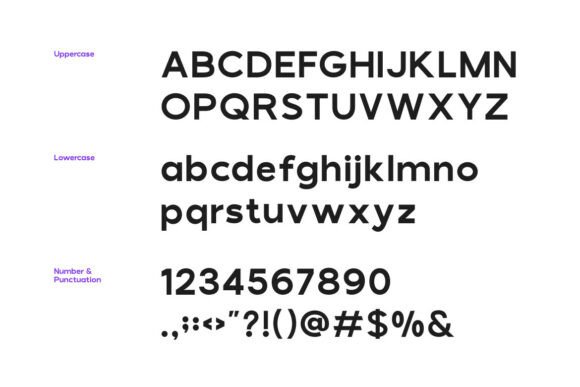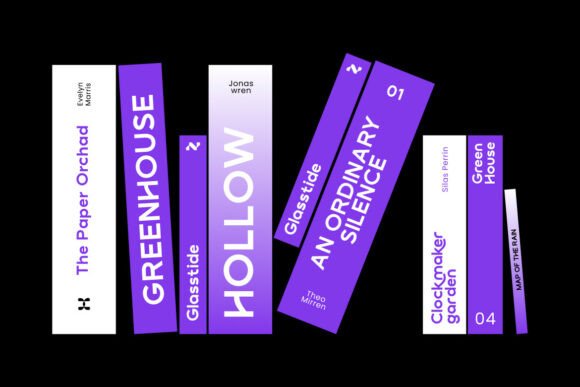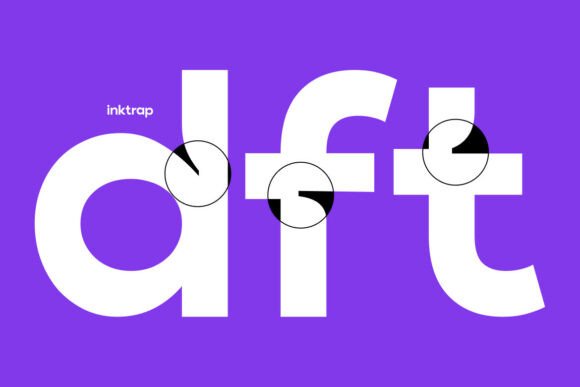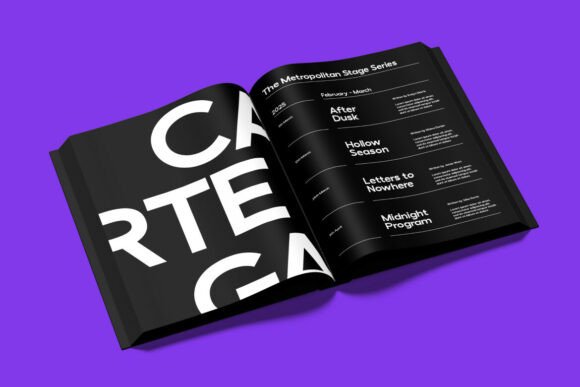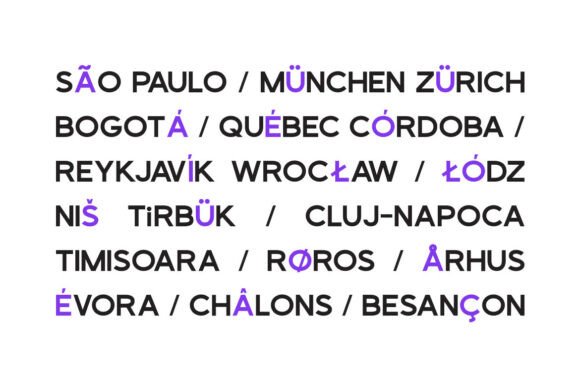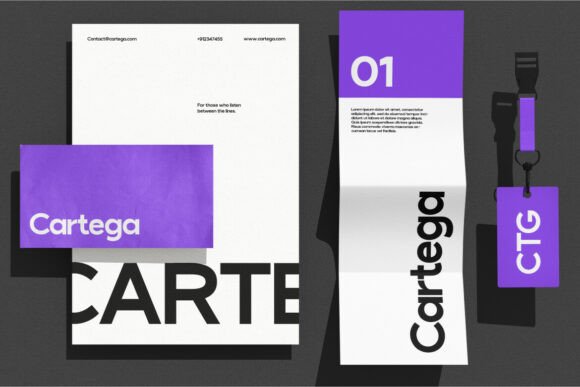
Designing for the World: Introducing Cartega Font
Have you ever stared at a foreign menu, trying to decipher the intricacies of a language you’re not familiar with? Or perhaps you’ve struggled to read a website in a language that’s not your native tongue? The challenges of global communication are real, but with the right tools, we can break down language barriers and connect with people across the world. That’s where Cartega Font comes in – a modern sans serif typeface designed to bridge the gap between languages and cultures.
As a designer, you know the importance of clarity and consistency in your work. Cartega Font delivers on both fronts, offering a clean geometric foundation with subtle humanist refinement that’s perfect for international brands, corporate identity systems, and global startups. With its extensive multilingual support and carefully engineered diacritics, Cartega Font is the perfect solution for companies looking to establish a strong global presence.
Cartega Font Key Features
- Font Family: Cartega Font is a modern sans-serif font family designed for digital use.
- Character Count: The font family includes over 600 characters, including Latin, Cyrillic, and Greek alphabets, as well as punctuation and special characters.
- Unique Characteristics: Cartega Font features a unique blend of geometric and organic shapes, resulting in a clean and modern aesthetic.
Cartega Font Review
Overall, I was impressed with Cartega Font. It has a unique and modern design that can be used for a variety of projects, from branding to digital products. ✨ One of the things that stands out about this font is its versatility – it can be used for both formal and informal projects, making it a great addition to any designer’s toolkit.
Some of the specific features that I like about Cartega Font include:
- Its clean and minimalist design, which makes it easy to read and understand.
- Its wide range of weights and styles, which allows for a lot of flexibility and customization.
- Its OpenType features, which make it easy to create complex and intricate designs.
- ⚠️ Cartega Font may not be suitable for projects that require a very formal or traditional look.
- ⚠️ Some users may find the font to be a bit too minimalist, which can make it difficult to read at very small sizes.
Overall, I think Cartega Font is a great choice for designers who want a modern and versatile font that can be used for a variety of projects. While it may have some limitations, I think it’s well worth considering for any design project.
Getting the Most Out of Cartega Font
To get the most out of Cartega Font, use it in conjunction with bold or italic styles to add emphasis to your text.
Also, experiment with different font sizes and colors to create visual interest and hierarchy in your design.
Cartega Font is ideal for:
- Creating modern and minimalist designs.
- Adding a touch of elegance to your text.
- Creating visual hierarchy in your design.
Alternatives to Cartega Font for Designers
Monserrat is a sans-serif font that is highly legible and versatile. It is ideal for use in headings and titles, as well as body text. Montserrat is a great choice for digital and print designs, and it is particularly well-suited for use on screens.
Compared to Cartega Font, Montserrat has a more modern and sleek aesthetic, with a focus on clean lines and geometric shapes. While Cartega Font has a more organic and handmade feel, Montserrat is more polished and professional.
Q: Is Cartega Font available in different language support?
Yes, Cartega Font includes support for multiple languages, including Latin, Cyrillic, and Greek scripts. It also includes Unicode characters for a wide range of languages and symbols, making it a versatile font for global applications.